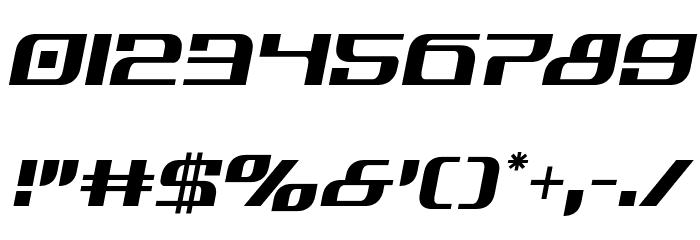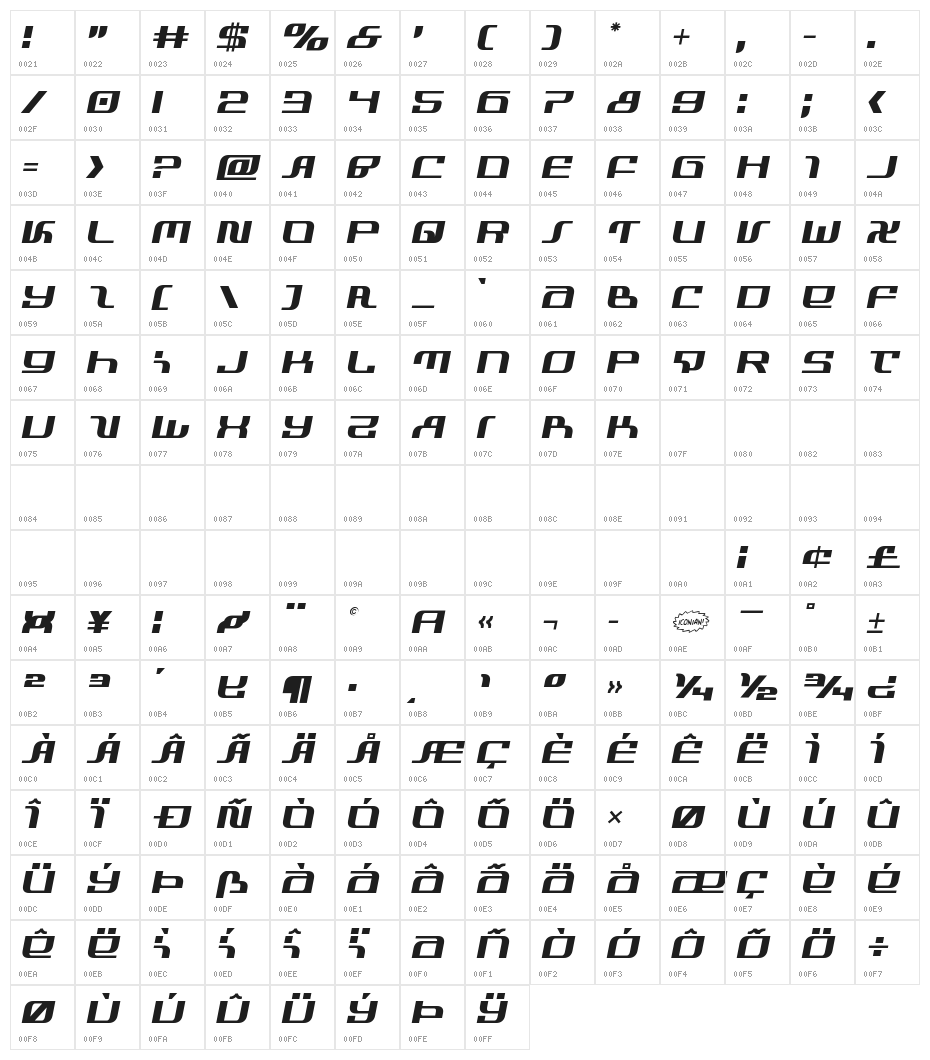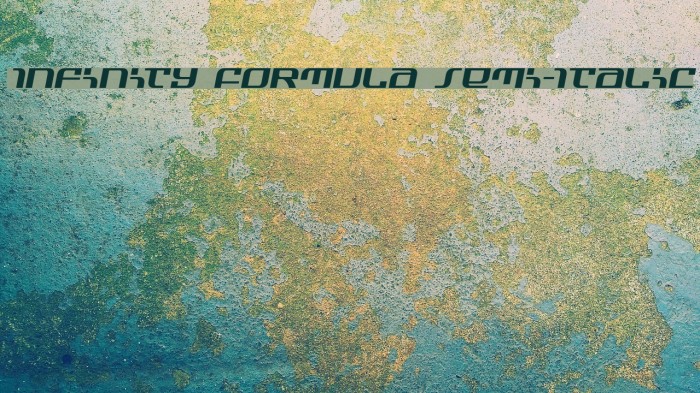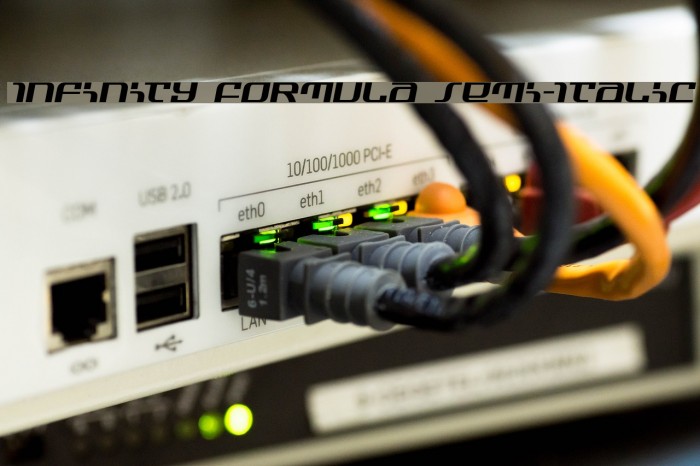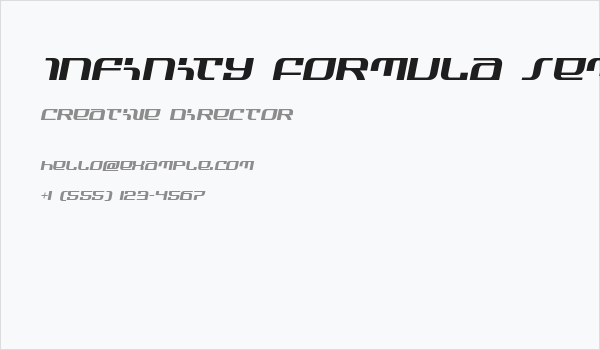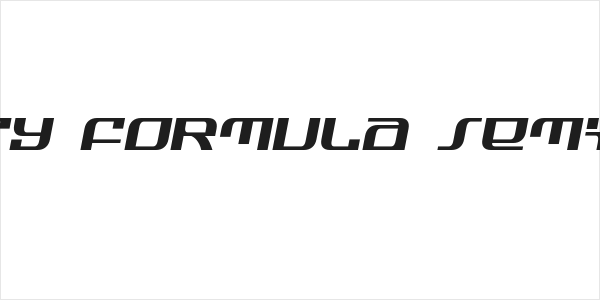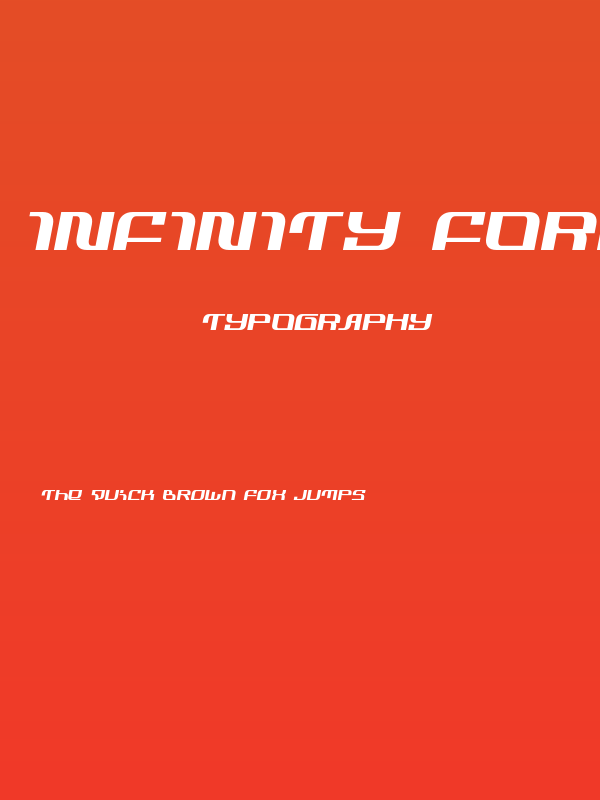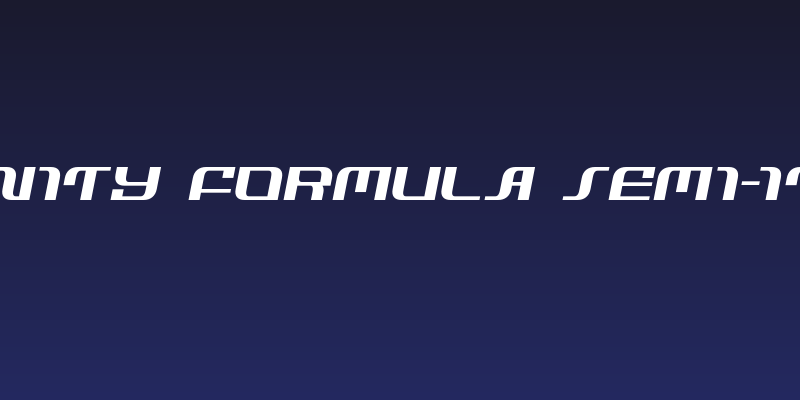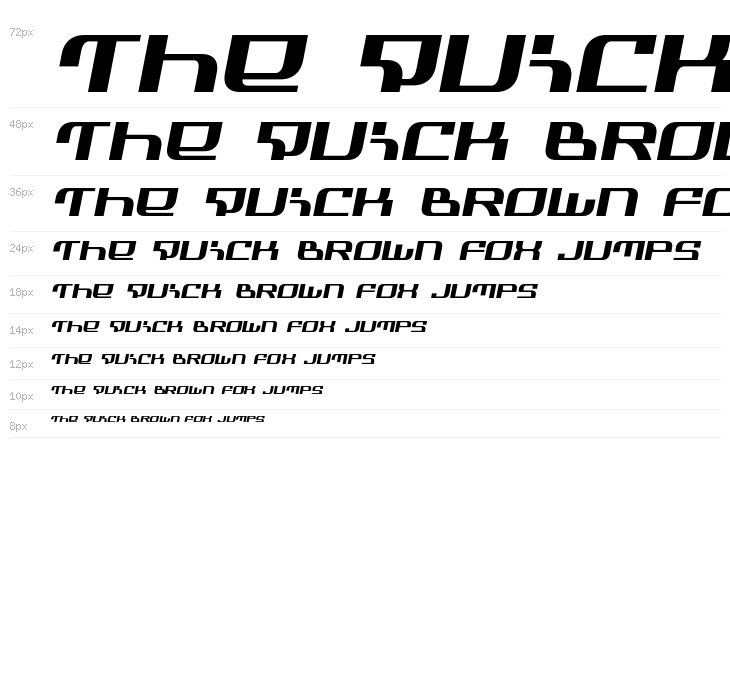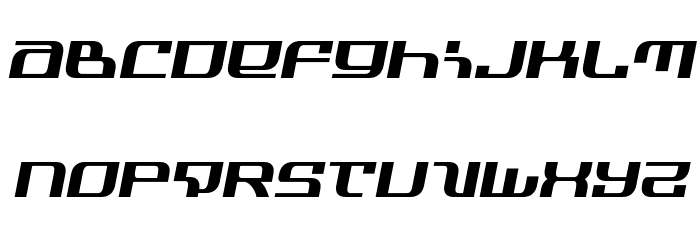
Infinity Formula Semi-Italic Font
Infinity Formula Semi-Italic Description
This font features a futuristic and dynamic design, characterized by its semi-italic style that gives a sense of motion and speed. The characters are bold and angular, with a distinct geometric influence that makes them stand out. The uppercase and lowercase letters maintain a consistent style, with sharp edges and a slight slant that enhances the italic effect. The numbers and special characters follow the same design principles, ensuring a cohesive look across all elements. This font is ideal for projects that require a modern and energetic feel, such as technology branding, sports team logos, or automotive advertisements.